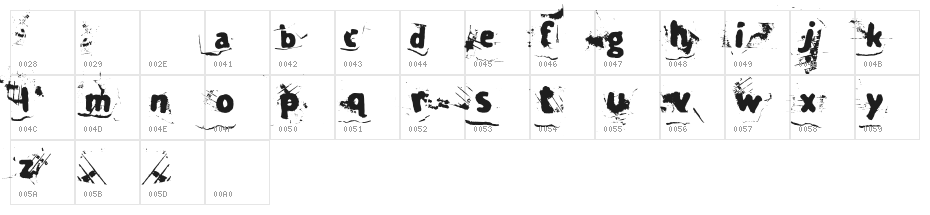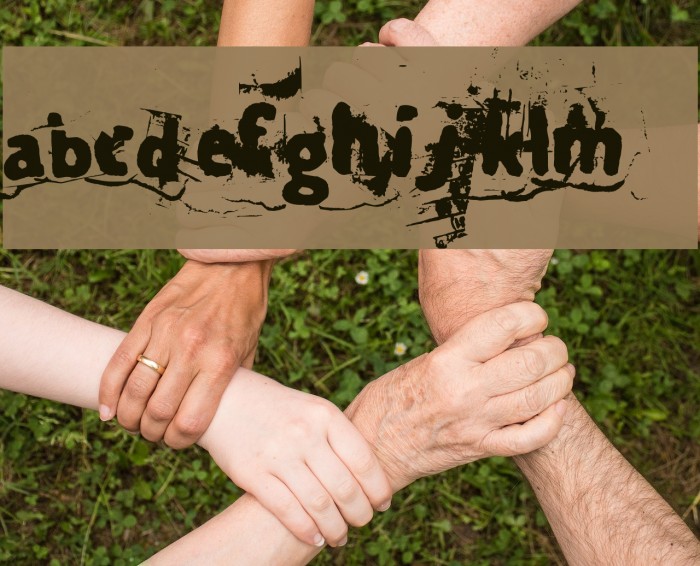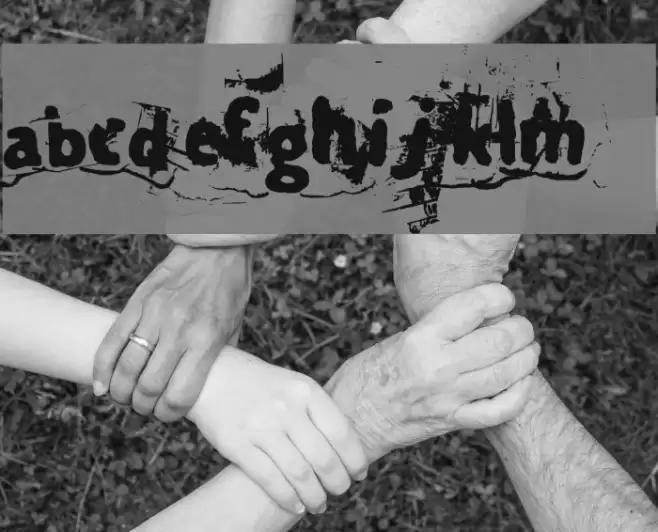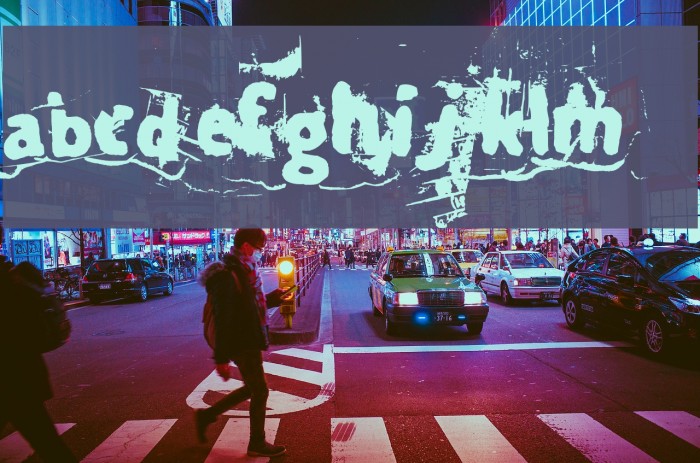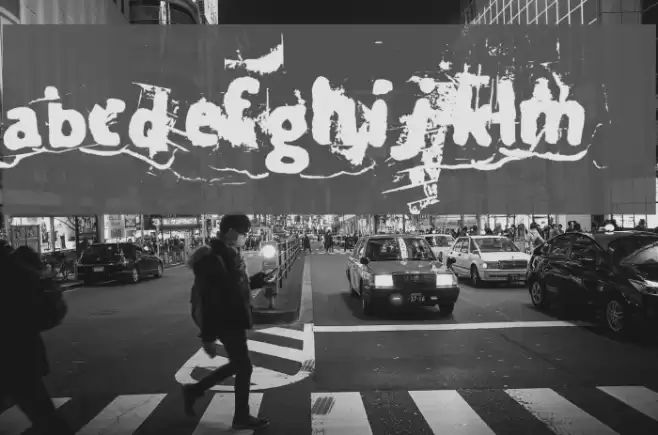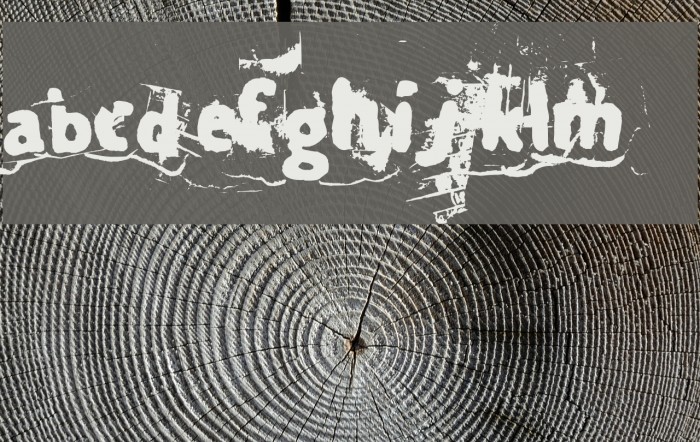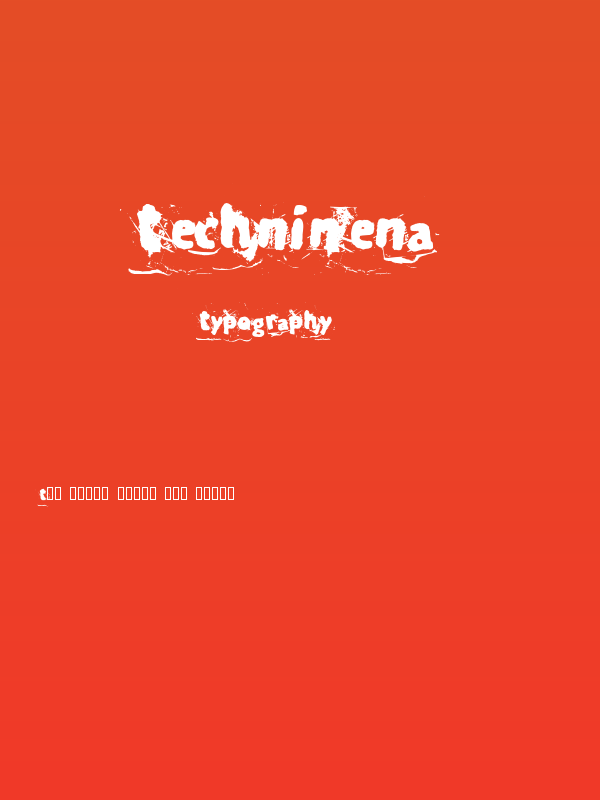
TechnineNA Font
TechnineNA Description
This font features a bold, grungy style with a distressed appearance, giving it a raw and edgy look. The letters are irregular and appear as if they have been hand-painted with a brush, adding to the chaotic and artistic feel. The uppercase and lowercase letters are consistent in their rugged texture, with splatters and rough edges that enhance the font's rebellious character. This style is perfect for projects that require a strong, impactful visual statement, such as album covers, posters, or branding for alternative or punk-themed events.
| Overall Style | Grunge, Artistic |
| Proposed Projects | Ideal for album covers, posters, and branding for alternative or punk-themed events. |